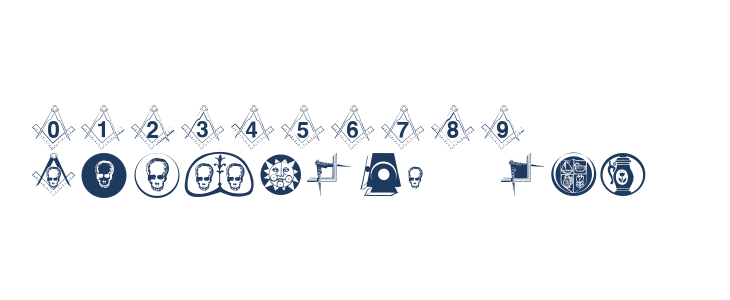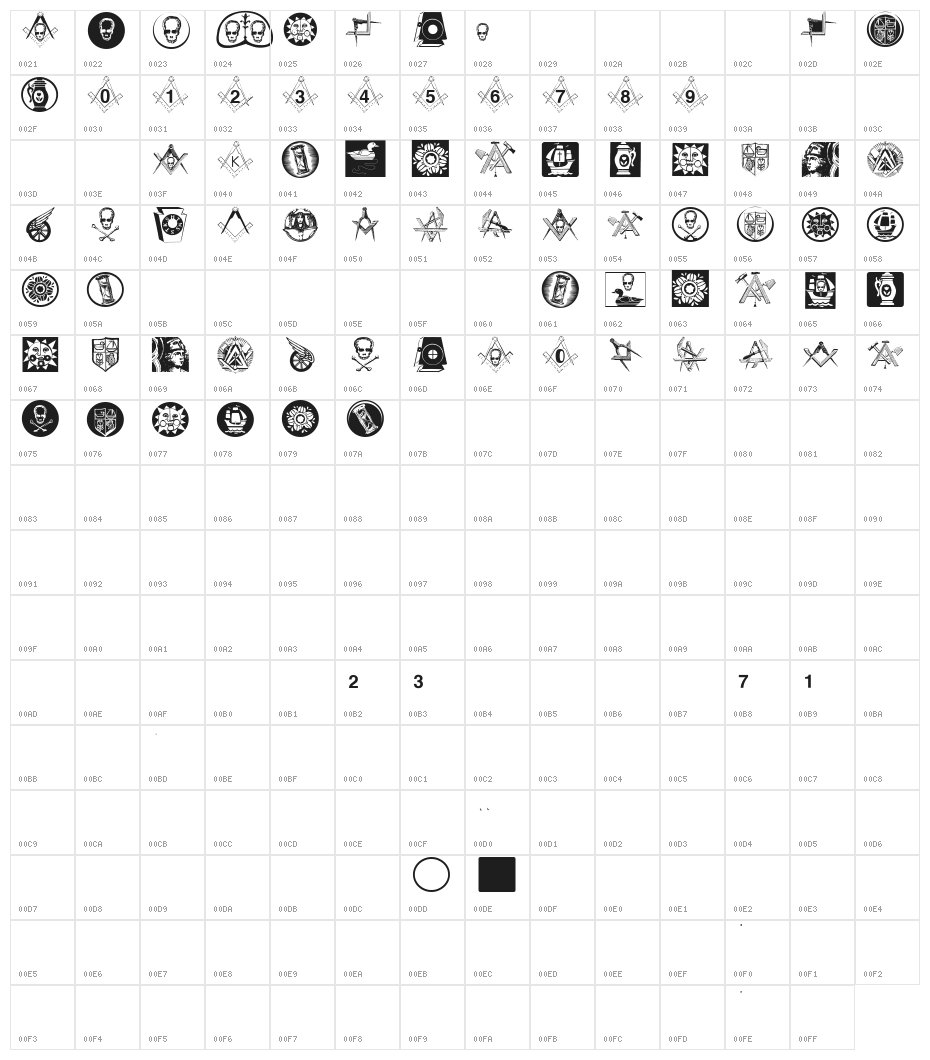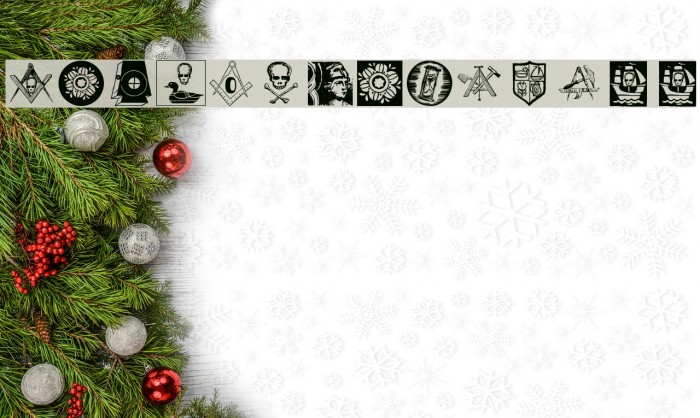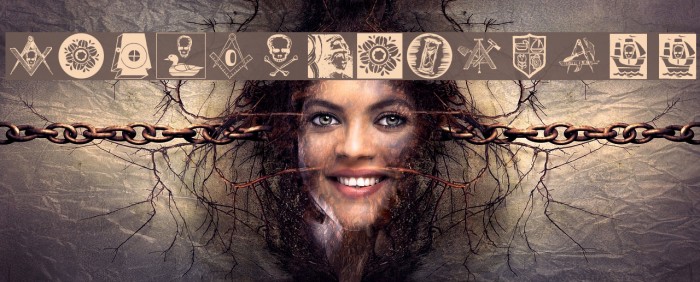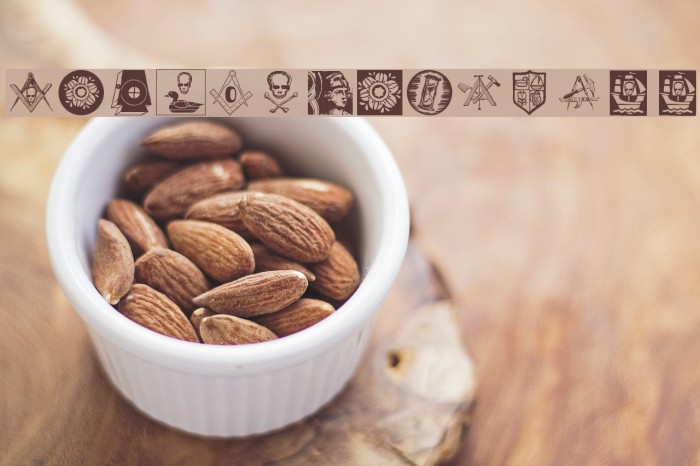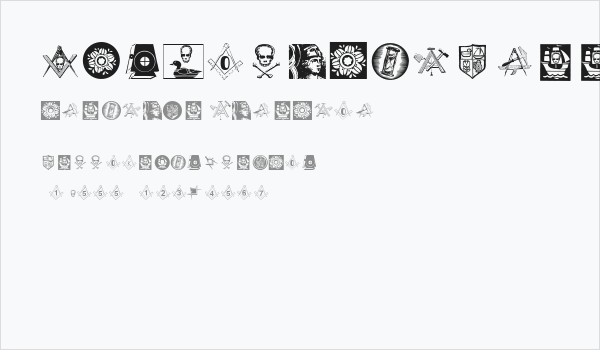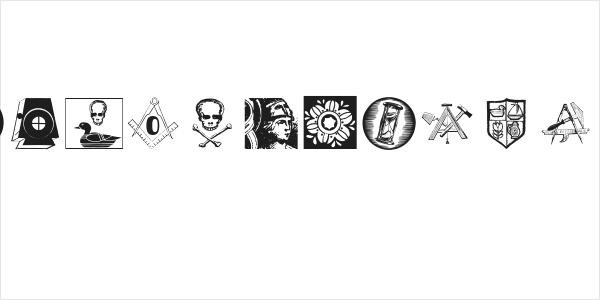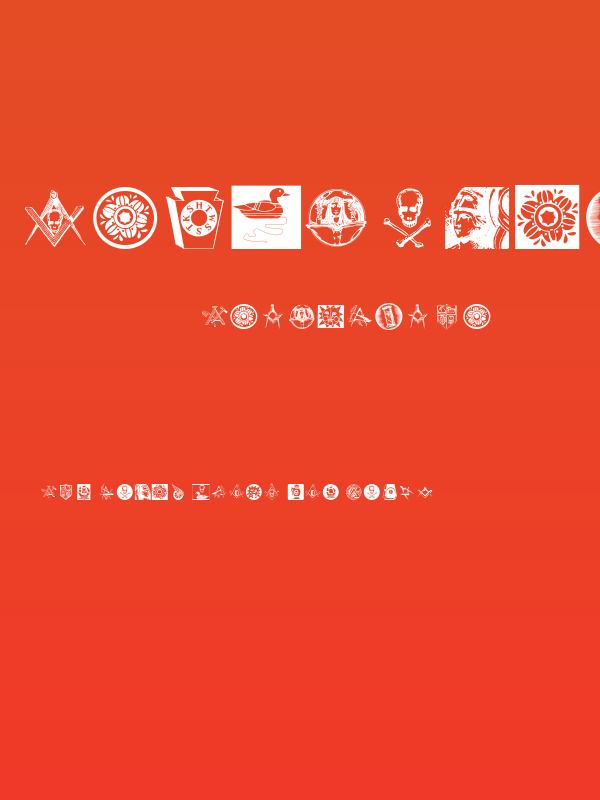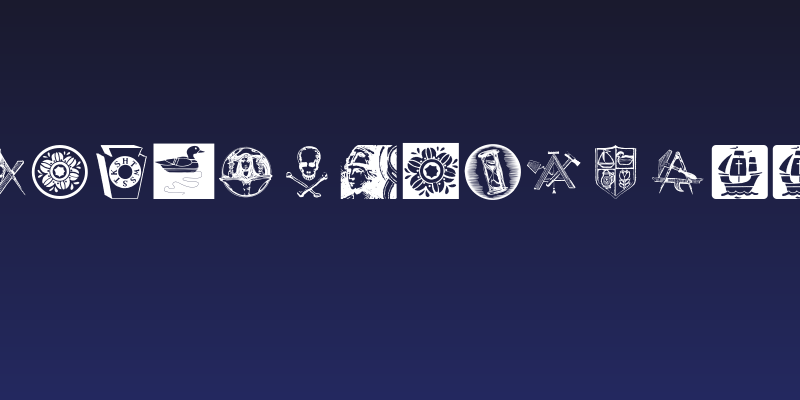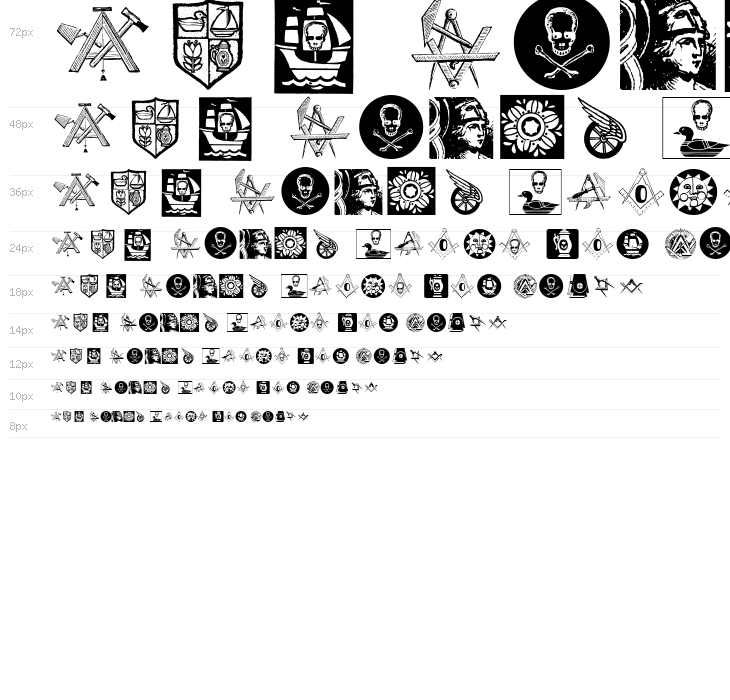
SymbolicaThree Font
SymbolicaThree Description
This collection features a series of intricate symbols and icons, each encapsulated within a square or circular frame. The designs are highly detailed, showcasing a variety of themes including nautical, masonic, and classical motifs. The symbols are rendered in a monochromatic palette, emphasizing their intricate line work and shading. The overall aesthetic is reminiscent of vintage engravings, with a strong emphasis on historical and symbolic imagery. Each icon is distinct, yet they collectively convey a sense of mystery and tradition, making them suitable for projects that require a touch of the esoteric or the historical.
| Use Case | Logos, Decorative elements, Thematic design |
| Proposed Projects | Ideal for use in branding, packaging, or editorial design that seeks a vintage or mysterious aesthetic. Suitable for projects related to history, mystery novels, or thematic events. |